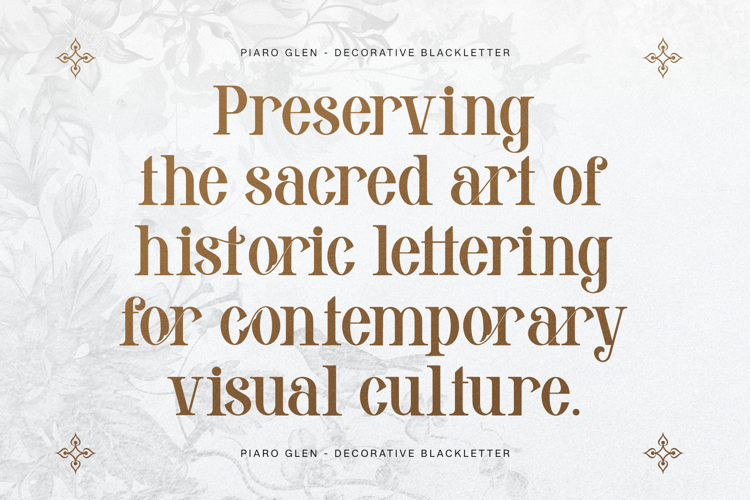
Piaro Glen Decorative Font
Piaro Glen | Serif Blackletter product packaging, mugs, quotes, posters, shopping bags, t-shirts, book covers, name card, invitation cards, greeting cards, label, photography, watermark, special events, and all your other lovely projects that need a Blackletter font taste.